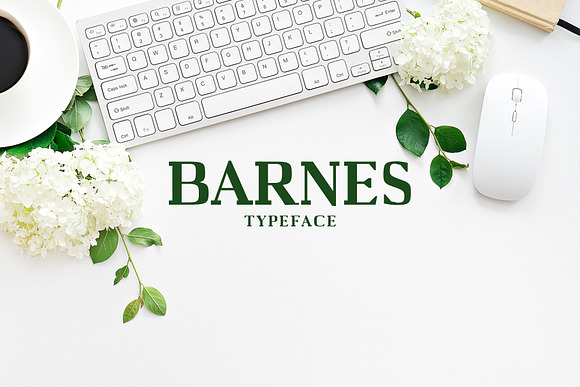
Barnes Serif 7 Font Family Pack
Barnes Serif 7 Font Family Pack is perfect for comprehensive book publishing, premium magazine layouts, corporate annual reports, academic journals, sophisticated branding materials, professional documentation, editorial design, and distinguished print publications.
Barnes Serif 7 Font Family Pack is exciting because it delivers unparalleled typographic versatility with meticulously crafted serif details and optimized proportions that ensure exceptional readability while maintaining elegant sophistication. Its comprehensive weight range provides complete design flexibility for complex publishing projects requiring professional editorial excellence.
Barnes Serif 7 Font Family Pack family includes seven weights from light to black with matching italic variations, offering designers fourteen expertly balanced font styles for complete typographic control and sophisticated hierarchical systems across all publishing applications.
Barnes Serif 7 Font Family Pack Free Download represents the pinnacle of serif typography designed specifically for comprehensive editorial solutions and professional publishing excellence. This exceptional typeface collection showcases masterful attention to detail through its refined serif construction and carefully optimized character spacing that enhances sustained reading comfort while projecting authoritative elegance. The font's extensive weight range makes it particularly suitable for publishing houses, luxury brands, academic institutions, and media companies requiring complete typographic flexibility with unwavering quality standards.
Editorial professionals consistently choose Barnes Serif 7 Font Family Pack for its outstanding performance in complex publications requiring sophisticated visual hierarchy and extended reading comfort. The font's comprehensive weight variations and refined styling ensure excellent readability across all applications from detailed footnotes to commanding headlines. Its classical foundation provides familiar reading comfort while contemporary refinements ensure optimal performance in both digital and premium print media environments.
Publishing teams appreciate Barnes Serif 7 Font Family Pack's versatility in creating prestigious editorial materials that establish immediate credibility and professional authority. Its comprehensive range transcends single-application limitations while maintaining the elegance required for serious editorial discourse, making it an invaluable asset for organizations seeking complete typographic solutions through superior serif communication and exceptional publishing flexibility.